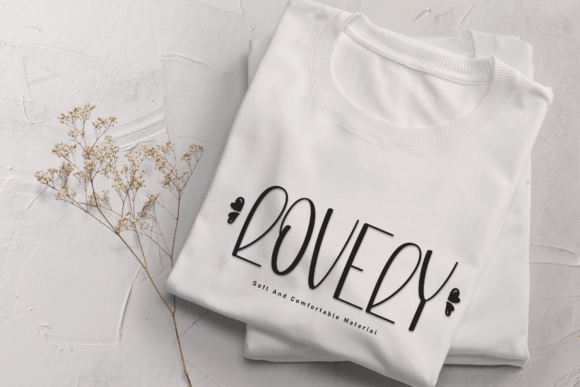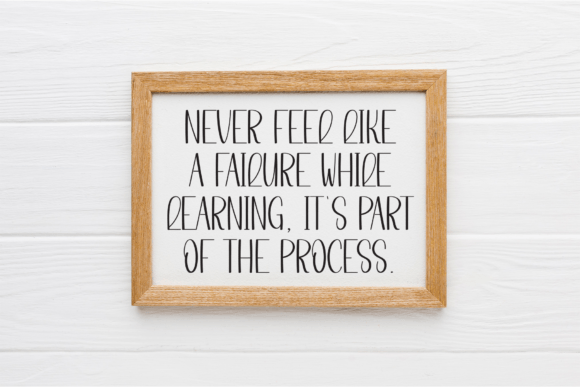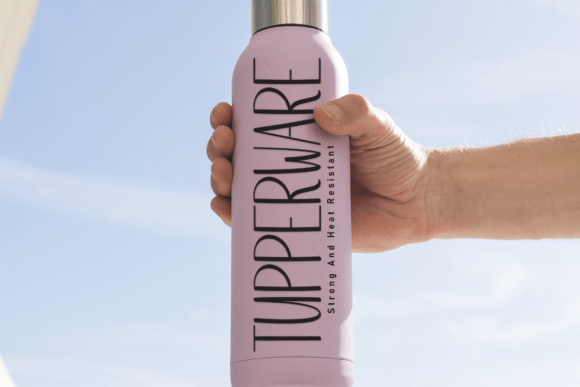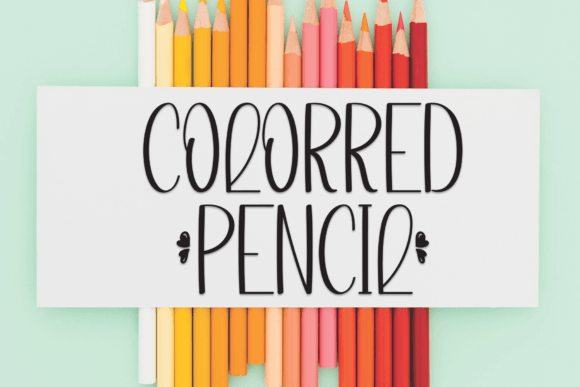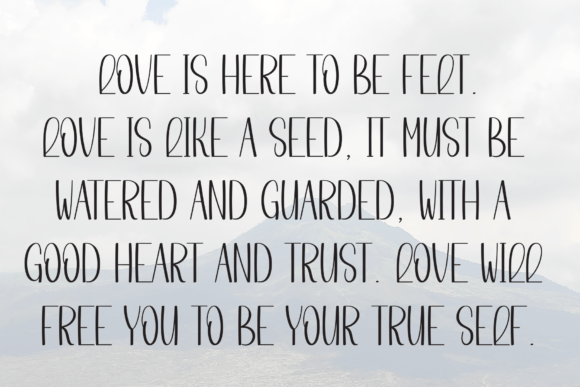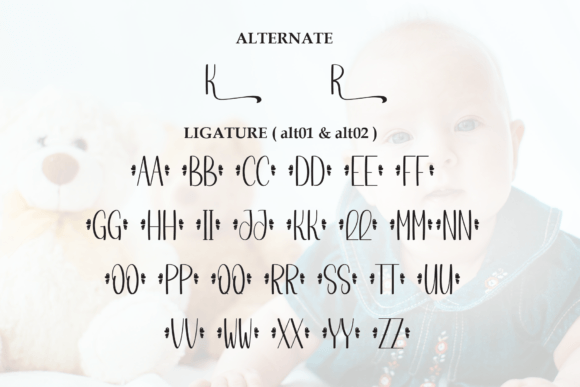
Introducing Chubby Darling Font: The Sweet and Friendly Handwritten Display Font
Are you looking for a font that can add a touch of sweetness and friendliness to your designs? Look no further than Chubby Darling Font! This adorable handwritten display font is perfect for creating eye-catching wedding invitations, cards, and other designs that require a fun and playful touch.
What Makes Chubby Darling Font So Special?
Chubby Darling Font is a unique and charming font that is sure to capture the hearts of designers and crafters alike. Its sweet and friendly appearance makes it ideal for a wide range of design projects, from wedding invitations and cards to posters, flyers, and more. The font’s handwritten style gives it a personal and approachable feel, making it perfect for designs that require a touch of warmth and personality.
Key Features of Chubby Darling Font
- Cute and Fun: Chubby Darling Font is a playful and fun font that is sure to add a smile to anyone’s face. Its adorable appearance makes it perfect for designs that require a lighthearted and carefree touch.
- Sweet and Friendly: The font’s sweet and friendly appearance makes it ideal for designs that require a warm and approachable feel. It’s perfect for wedding invitations, cards, and other designs that require a personal touch.
- Handwritten Style: Chubby Darling Font features a beautiful handwritten style that gives it a unique and personal appearance. The font’s handwritten style makes it perfect for designs that require a touch of elegance and sophistication.
- Versatile: Chubby Darling Font is a versatile font that can be used for a wide range of design projects. It’s perfect for designers and crafters who want to add a touch of personality to their designs.
How to Use Chubby Darling Font in Your Designs
Chubby Darling Font is easy to use and can be incorporated into a wide range of design projects. Here are a few ideas to get you started:
- Wedding Invitations: Chubby Darling Font is perfect for creating beautiful and unique wedding invitations. Its sweet and friendly appearance makes it ideal for wedding designs that require a personal touch.
- Cards: The font is also great for creating cards for special occasions such as birthdays, anniversaries, and holidays.
- Posters and Flyers: Chubby Darling Font can be used to create eye-catching posters and flyers that require a fun and playful touch.
- Social Media Graphics: The font is also perfect for creating social media graphics that require a personal and approachable feel.
Tips for Getting the Most Out of Chubby Darling Font
Here are a few tips for getting the most out of Chubby Darling Font:
- Use it with Other Fonts: Chubby Darling Font can be paired with other fonts to create a unique and interesting design. Try pairing it with a bold font for a striking contrast.
- Experiment with Colors: The font looks great in a variety of colors, so don’t be afraid to experiment and find the perfect color for your design.
- Use it for Headings: Chubby Darling Font is perfect for headings and titles. Use it to add a touch of personality to your design.
| Font Name | Chubby Darling Font |
Chubby Darling Font is a sweet and friendly handwritten display font that is perfect for designers and crafters who want to add a touch of personality to their designs. Its cute and fun appearance makes it ideal for a wide range of design projects, from wedding invitations and cards to posters, flyers, and more. With its versatility and ease of use, Chubby Darling Font is a great addition to any designer’s toolkit.